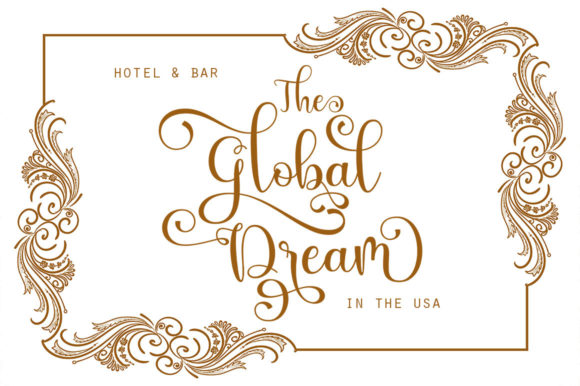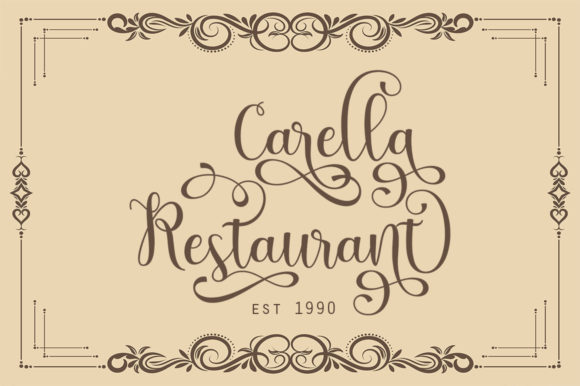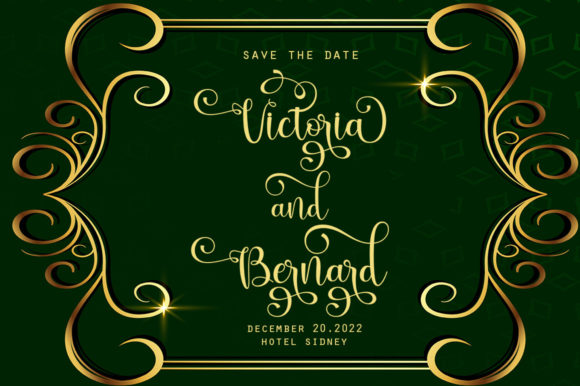
About The Glaster Font
The Glaster is a distinct and graceful script font. Fall for its ravishing style and use it to create gorgeous designs. This font is PUA encoded which means you can access all glyphs and swashes with ease!